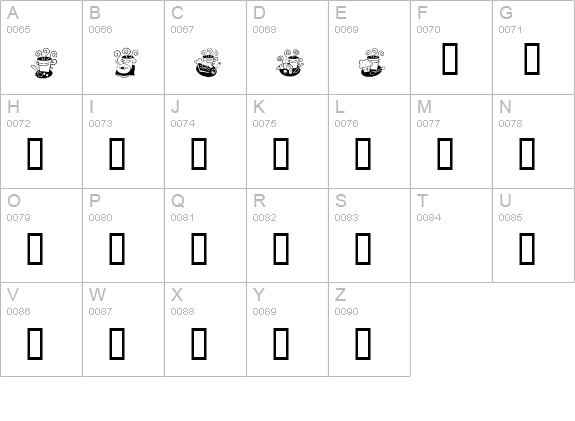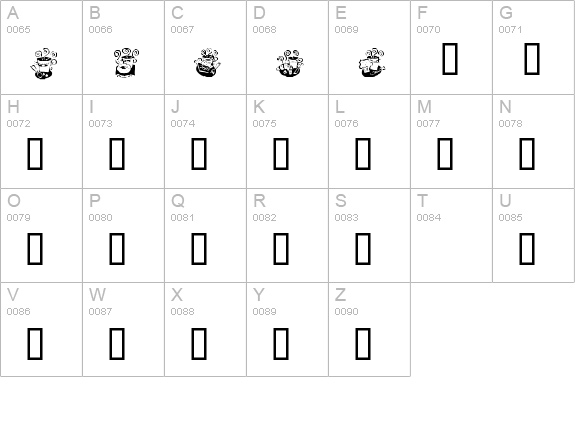
KR Coffee Dings Font Details
KR Coffee Dings font is a whimsical and charming typeface that brings a touch of playfulness to any design project. With its unique coffee-themed icons and symbols, this font is perfect for adding a fun and creative element to your work. Whether you're designing a menu for a coffee shop, creating social media graphics, or simply looking to add some personality to your projects, KR Coffee Dings has got you covered. The best part? This delightful font is available for free download at FontsMarket.com. You can easily incorporate these cute coffee icons into your designs without any cost, making it a fantastic resource for both personal and commercial projects. Don't miss out on the opportunity to add a dash of creativity to your work with KR Coffee Dings font – download it today and let your imagination run wild!